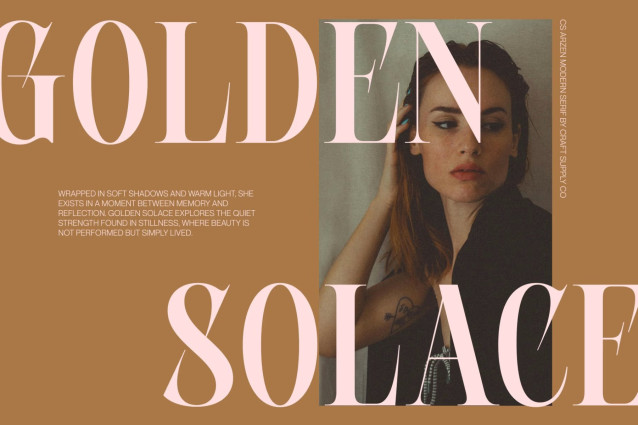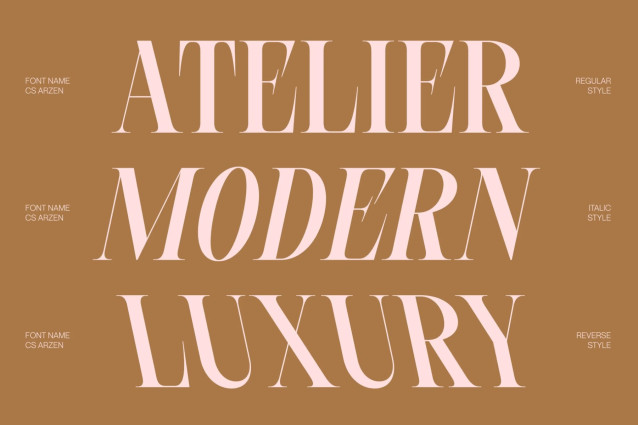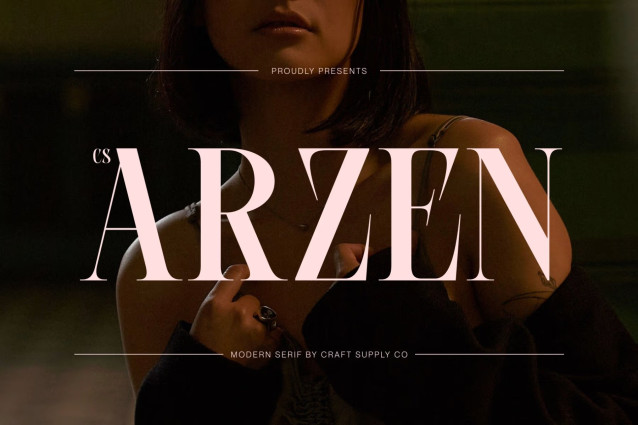
CS Arzen – Modern Serif Font
CS Arzen – Modern Serif Font: Where Slender Elegance Meets Contemporary Refinement
Slim Proportions with Graceful Elongated Serifs
This is a modern serif font designed with slim proportions and elegant elongated serifs, creating a refined visual identity that feels graceful, sophisticated, and contemporary. Its slender letterforms bring a sense of lightness and precision, while the extended serif details add a luxurious touch that enhances its overall elegance.
Low Contrast with Clean Contemporary Design
This font delivers a smooth and balanced appearance that emphasizes clarity and refinement. Its clean structure modernizes traditional serif typography, resulting in a timeless aesthetic that feels both professional and approachable. This understated contrast allows the font to maintain exceptional readability while conveying quiet luxury.